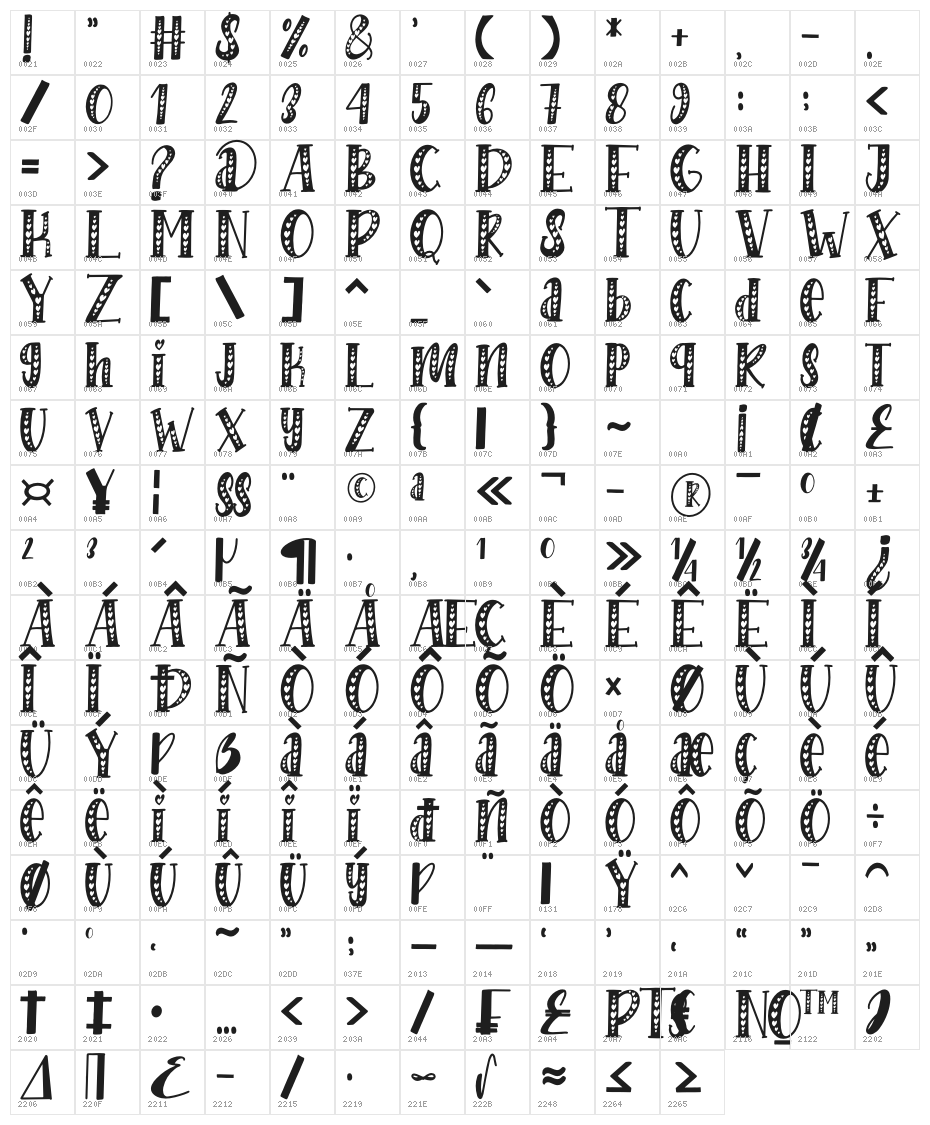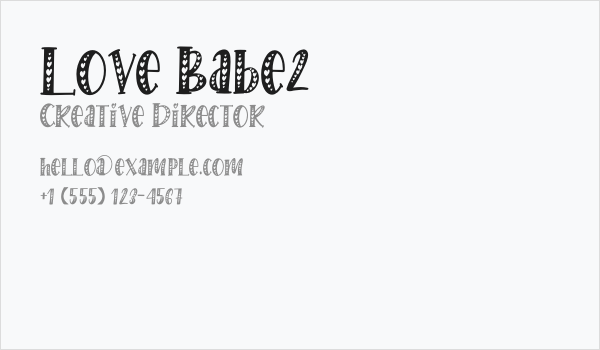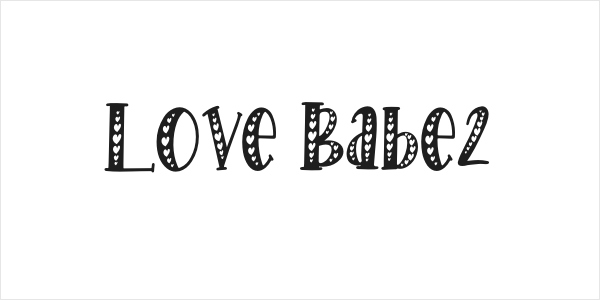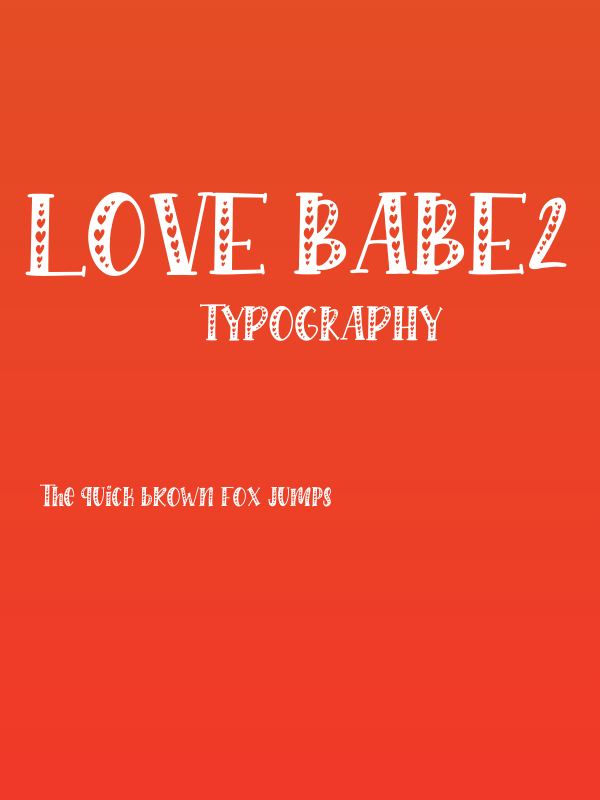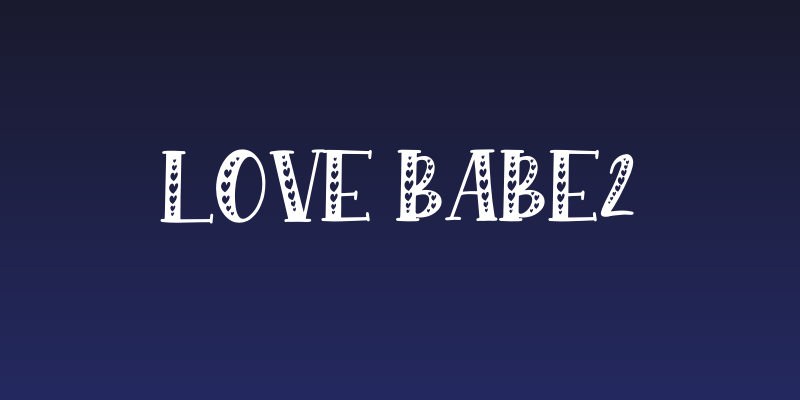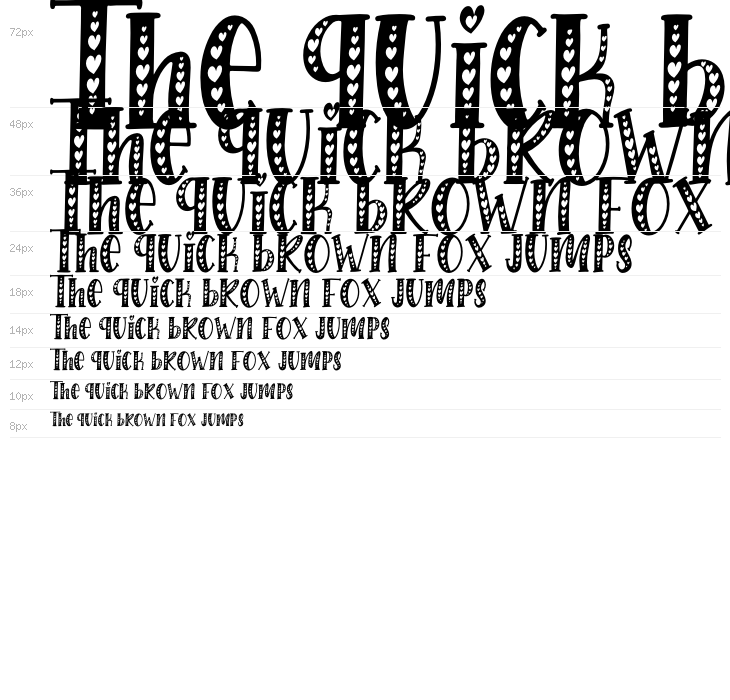
Love Babe2 Font
Love Babe2 Description
This playful and decorative font features a unique design with heart-shaped cutouts within each character, adding a whimsical and romantic touch. The uppercase and lowercase letters maintain a consistent style, with a slight slant that gives a dynamic and lively appearance. The numerals and special characters follow the same heart-themed design, ensuring a cohesive look across all text elements. The font's bold strokes and distinct shapes make it highly legible while retaining its charming aesthetic. Ideal for projects that require a fun and loving vibe, this font stands out with its creative and eye-catching details.
| Overall Style | Playful, Romantic |
| Use Case | Headlines, Logos, Invitations |
| Proposed Projects | Ideal for Valentine's Day cards, wedding invitations, love-themed posters, and playful branding. |